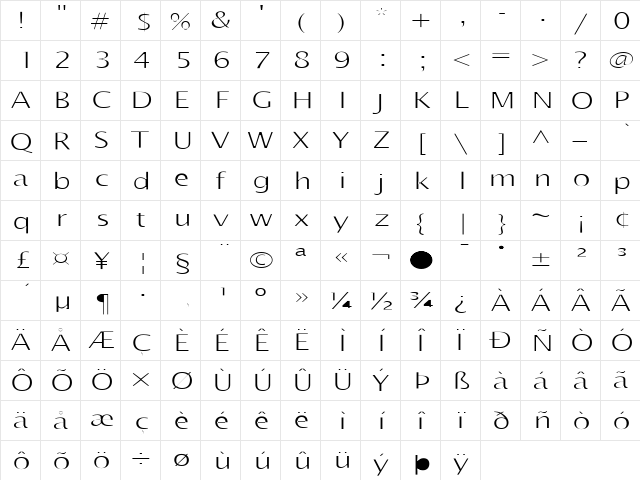
Intention Medium Font Preview
Intention Medium
Design Context for Intention Typeface
Intention is a composed and adaptable typeface that performs quietly and consistently across a wide range of design contexts.